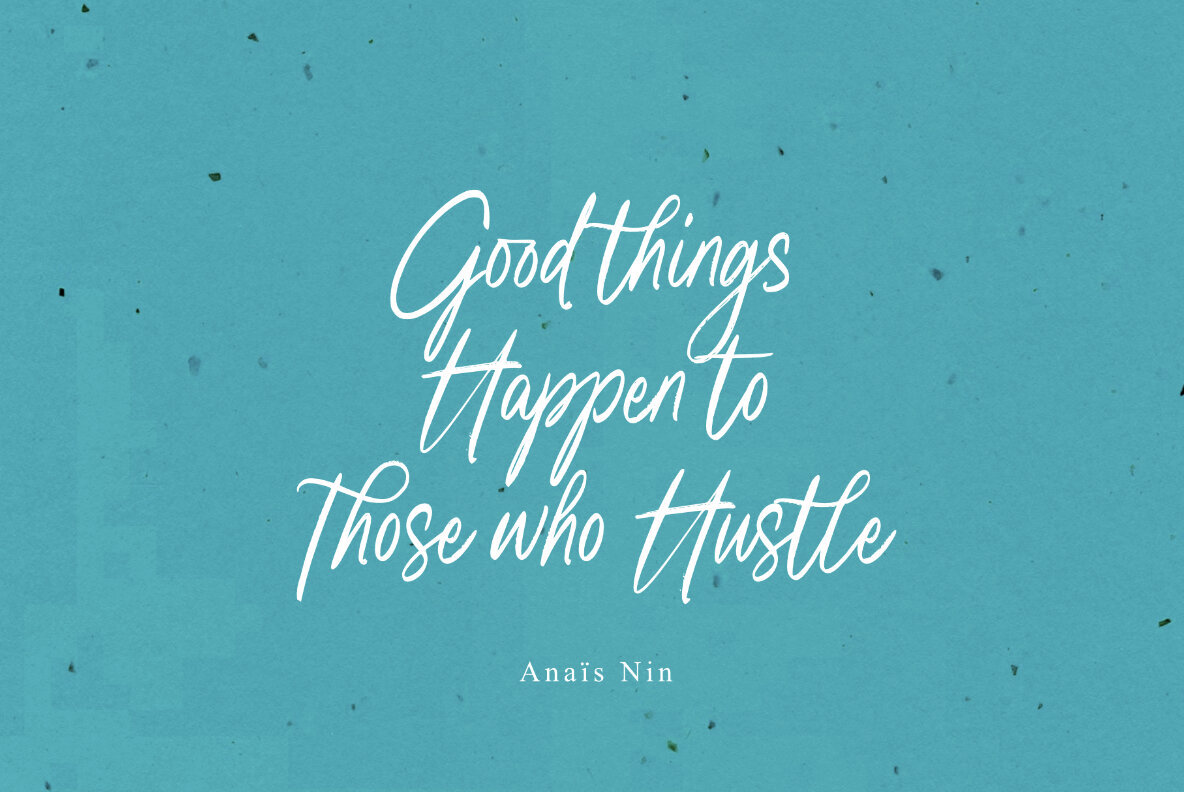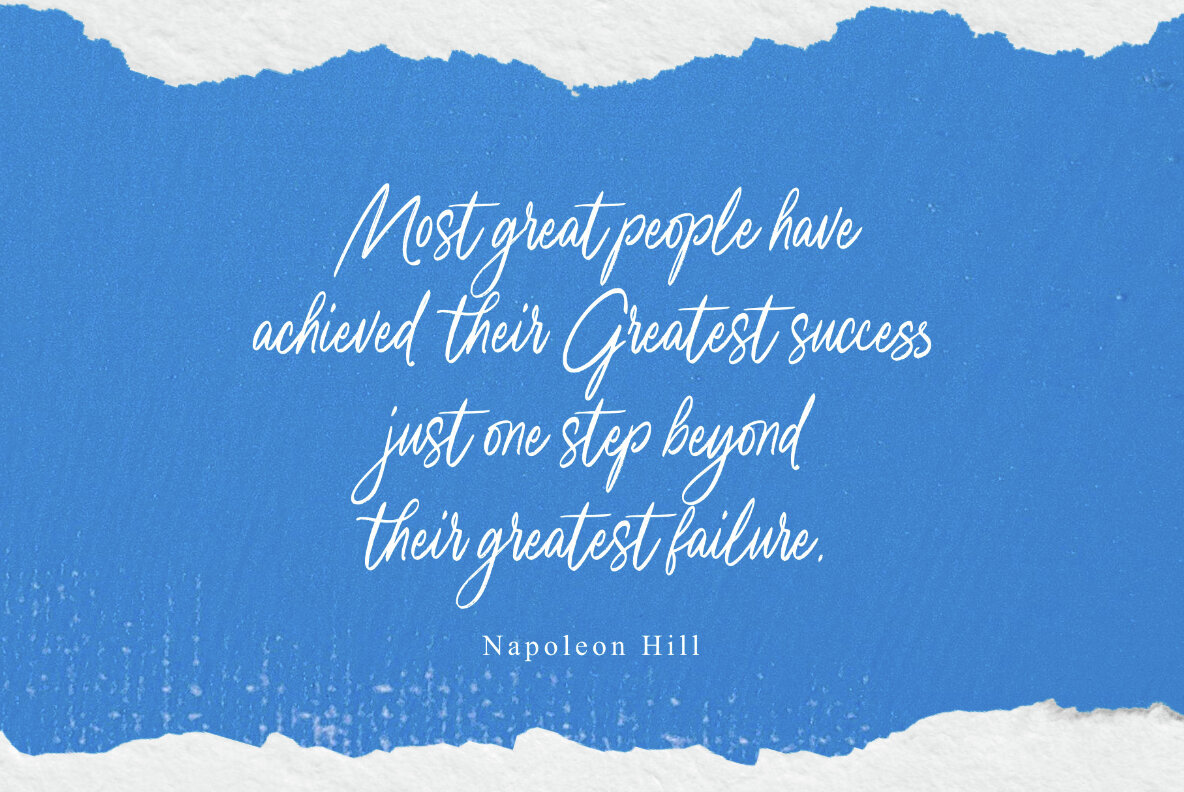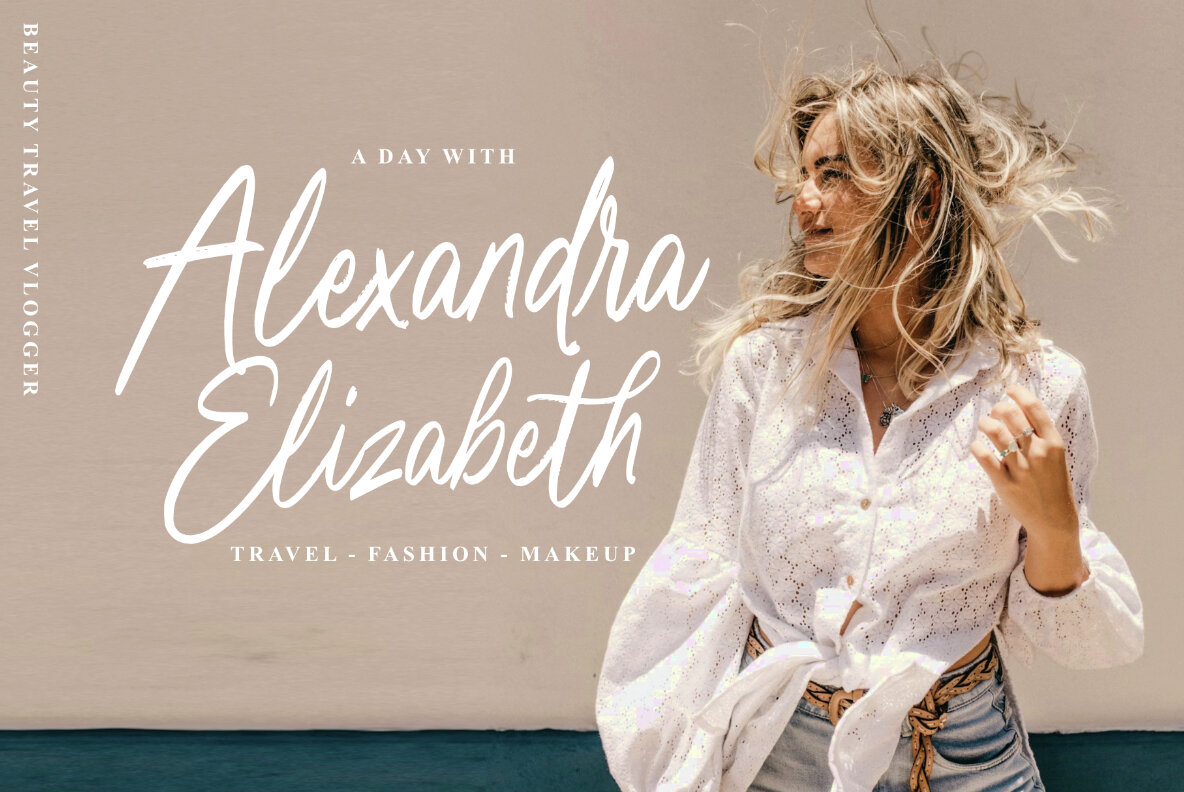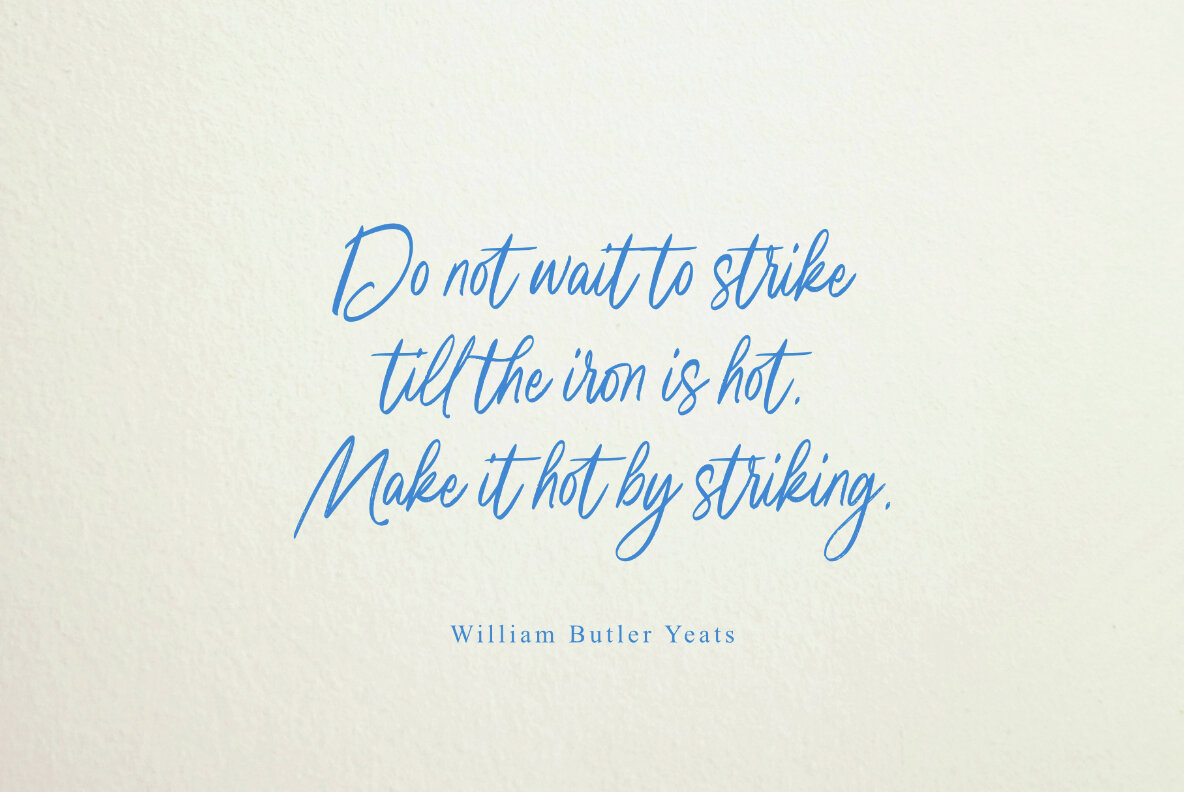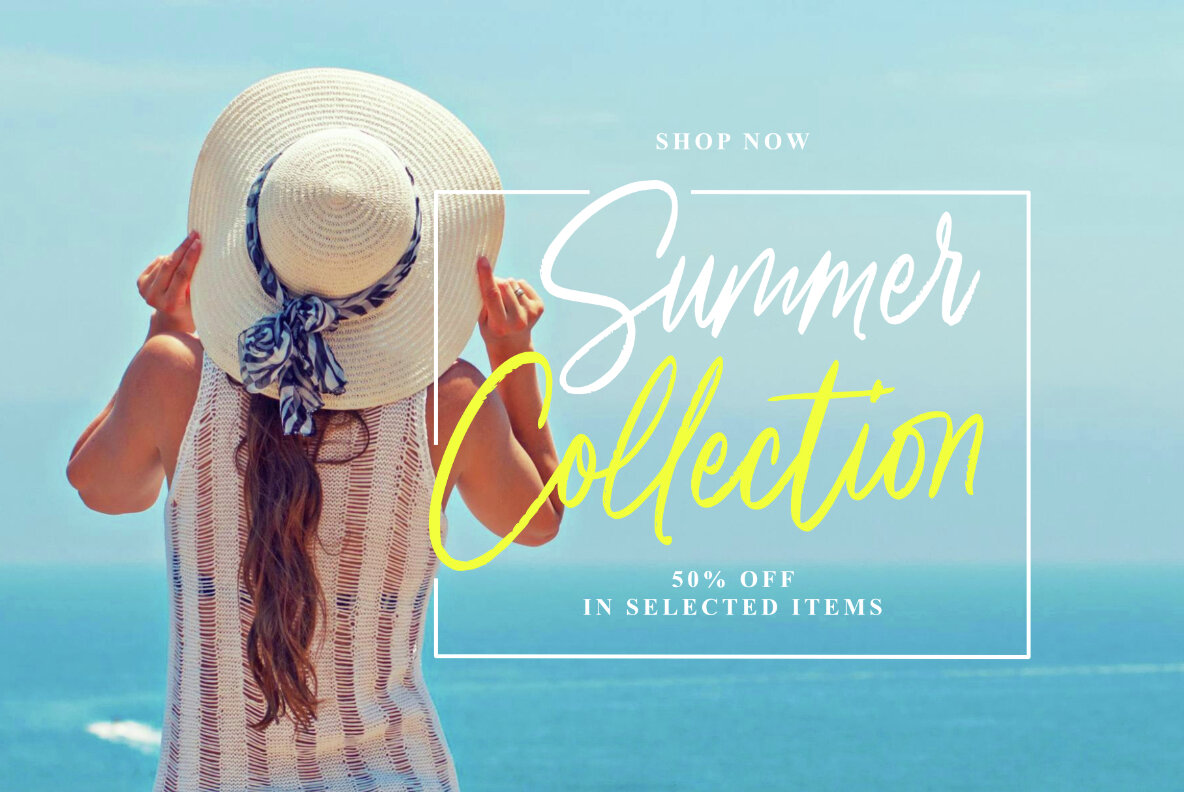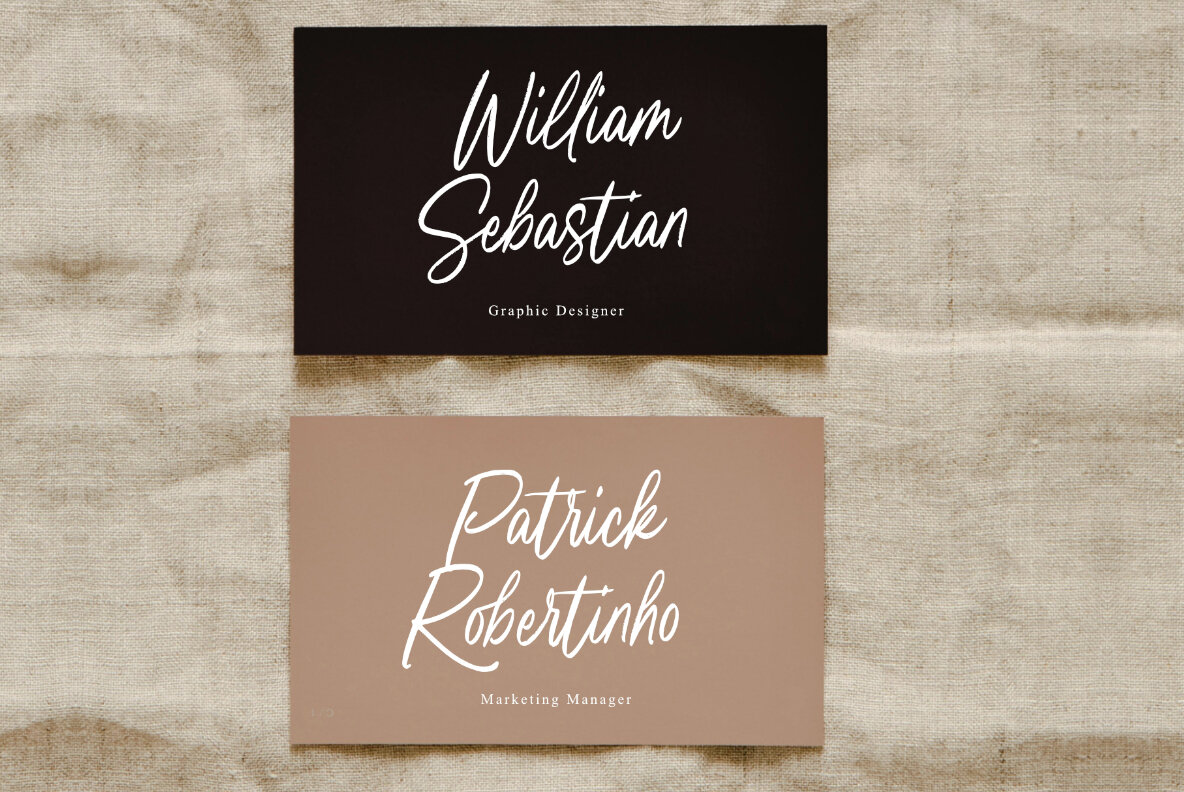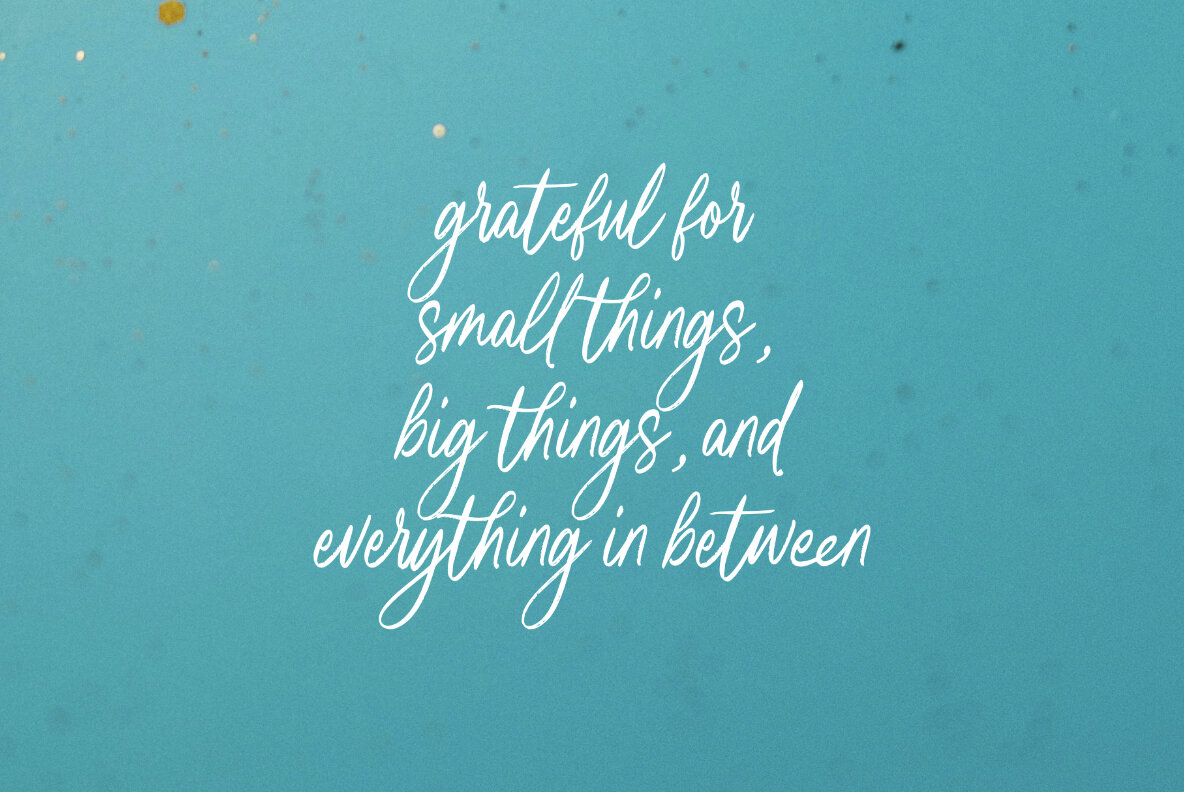
Kamilla Blue Font
Kamilla Blue Regular
Experience the charm of Kamilla Blue, a hand-crafted script typeface that artfully combines sophistication with a dash of whimsy. This masterfully designed typeface draws inspiration from emotional and expressive handwriting, injecting every project with an artful balance of elegance and playful energy. Kamilla Blue is defined by its smooth, consistently flowing strokes and understated curves, lending a refreshing personal touch and captivating character to every design. Its organic, artisanal feel equips it with the versatility to shine across a plethora of applications. Whether creating heartwarming greeting cards, elegant wedding invitations, or a distinct branding identity, Kamilla Blue consistently infuses every design with a unique, personalized flair. Each character in this font is a testament to the art of handwriting, each letter a brushstroke offering an artisanal touch to your designs. Kamilla Blue extends an open invitation to explore a universe of creativity and self-expression. Embrace the whimsical elegance of Kamilla Blue and allow your creations to bloom, infused with the heartfelt magic of handwritten designs.